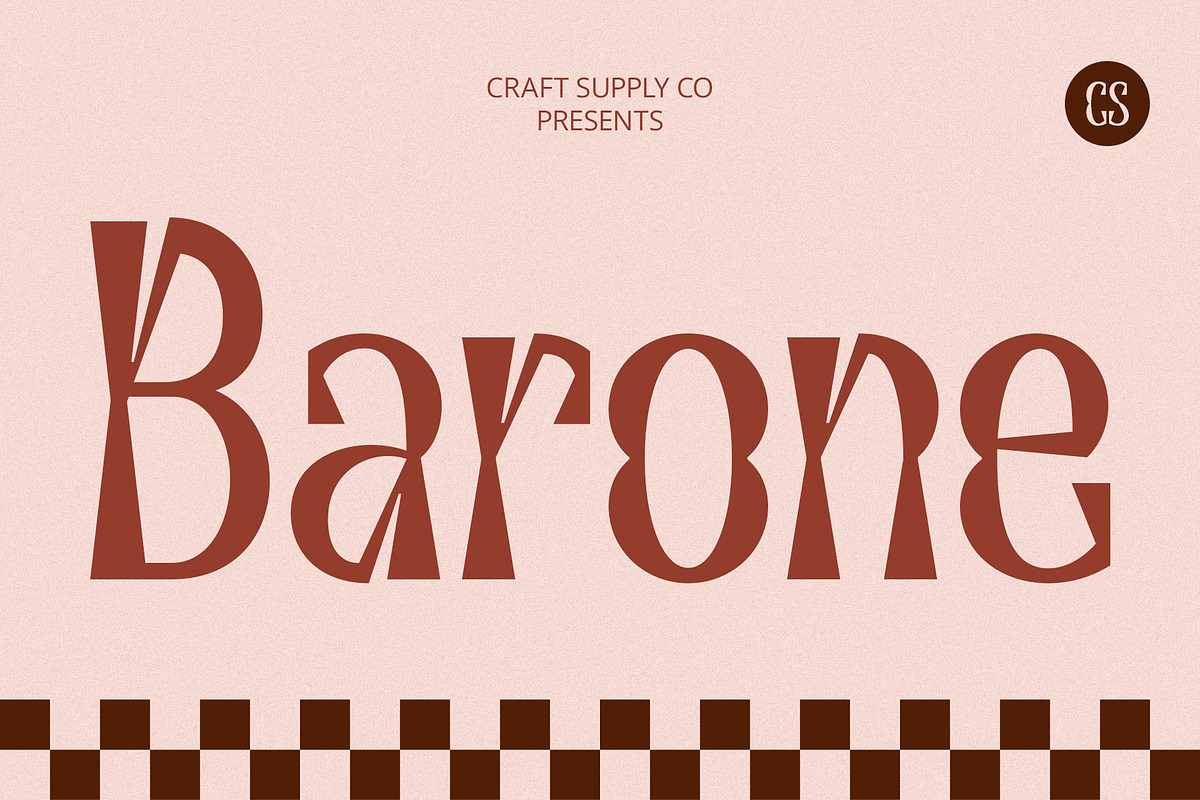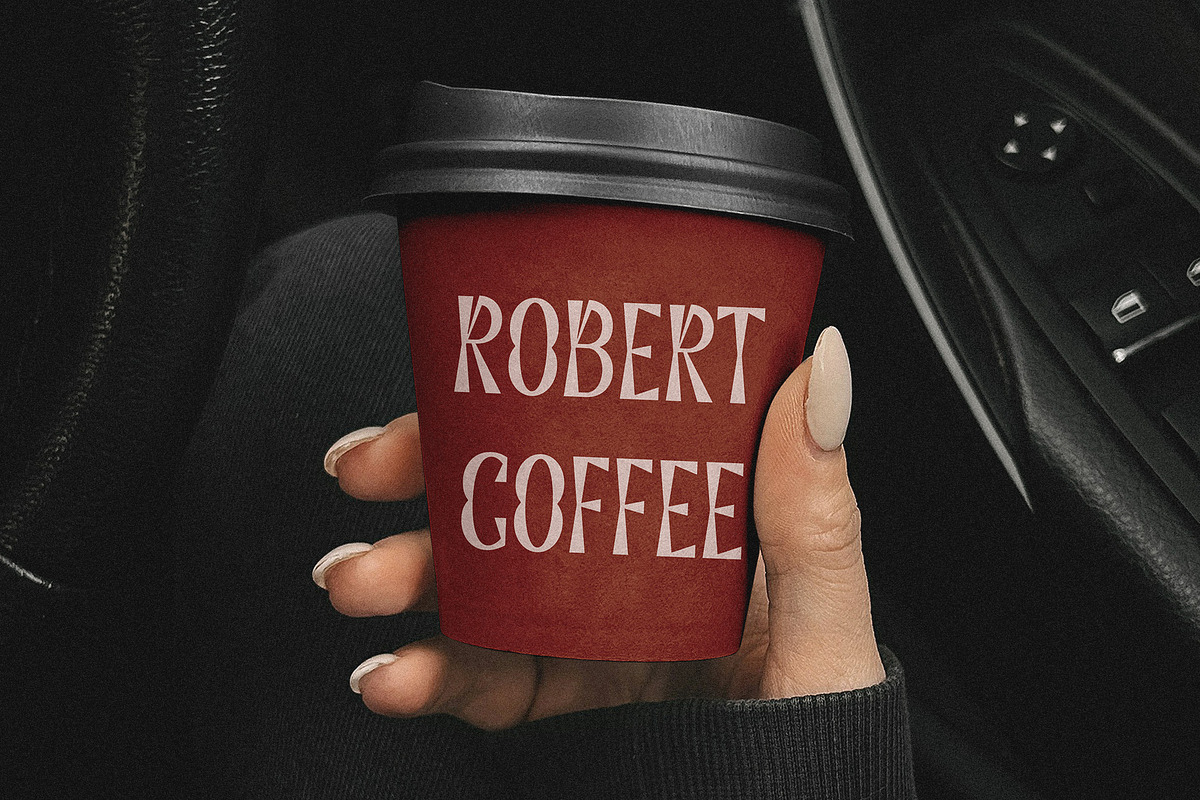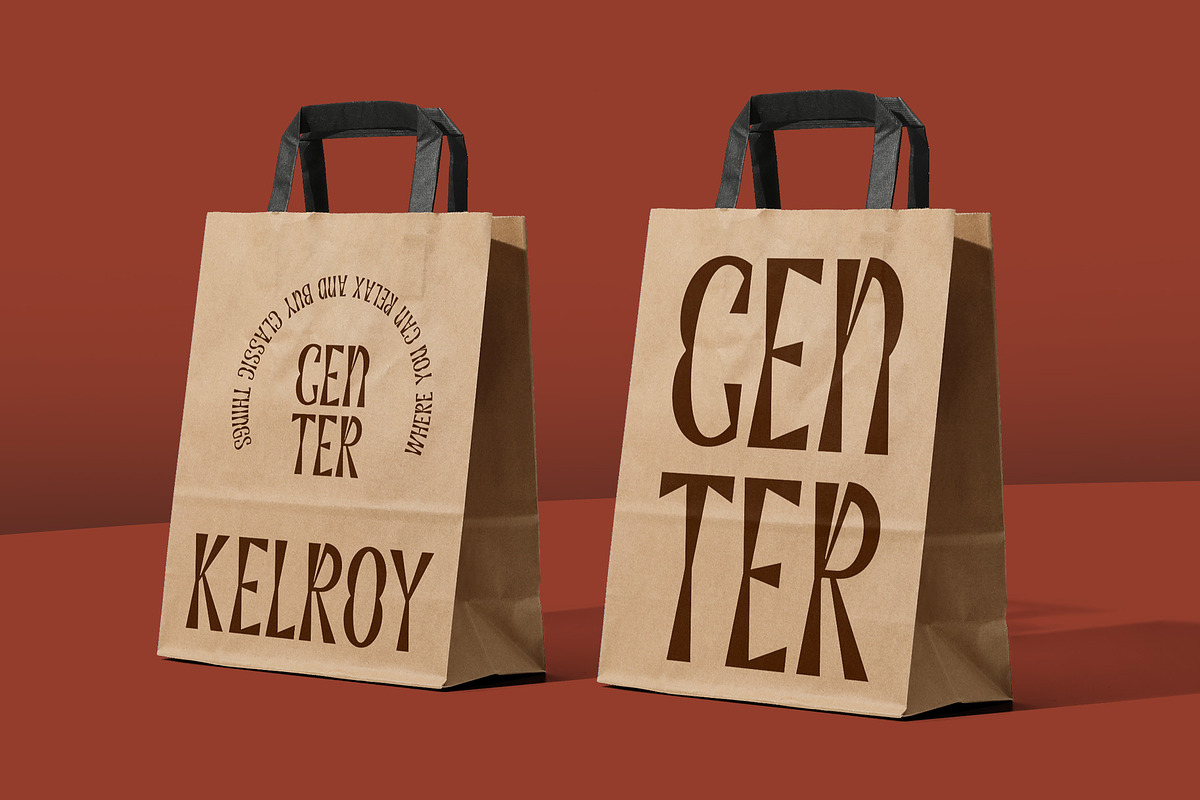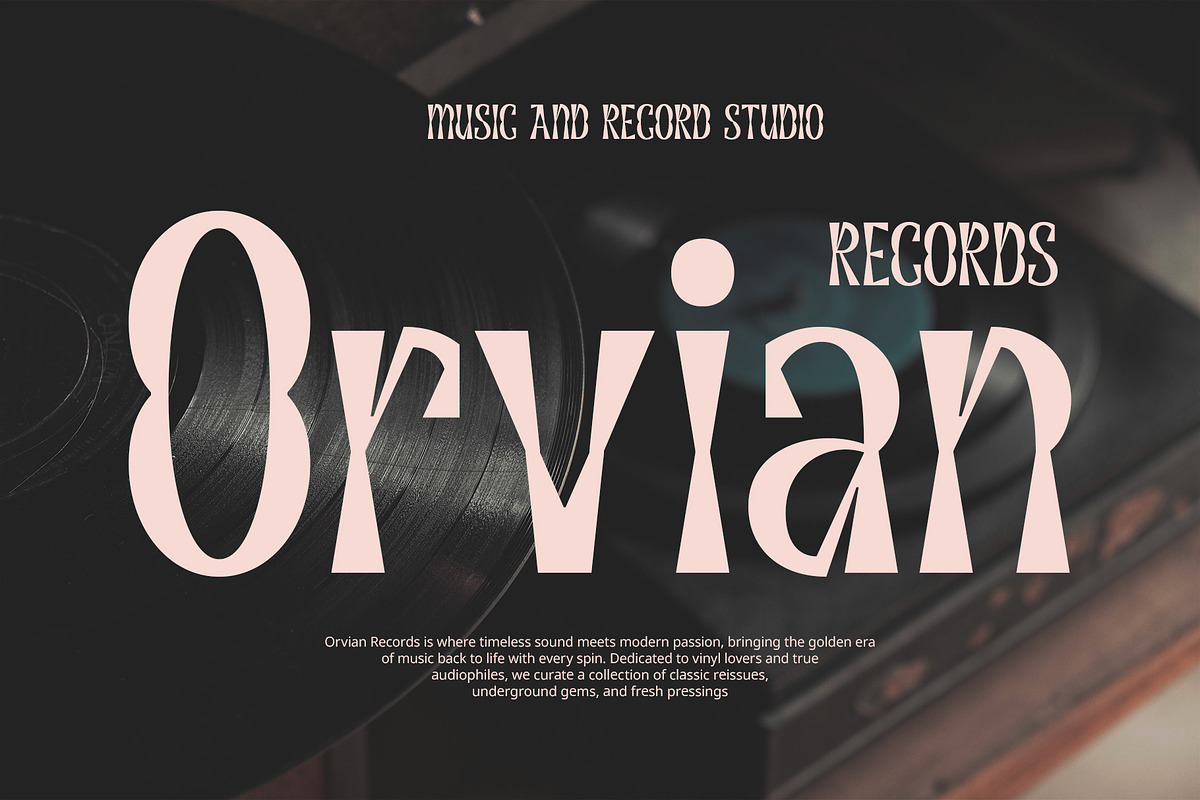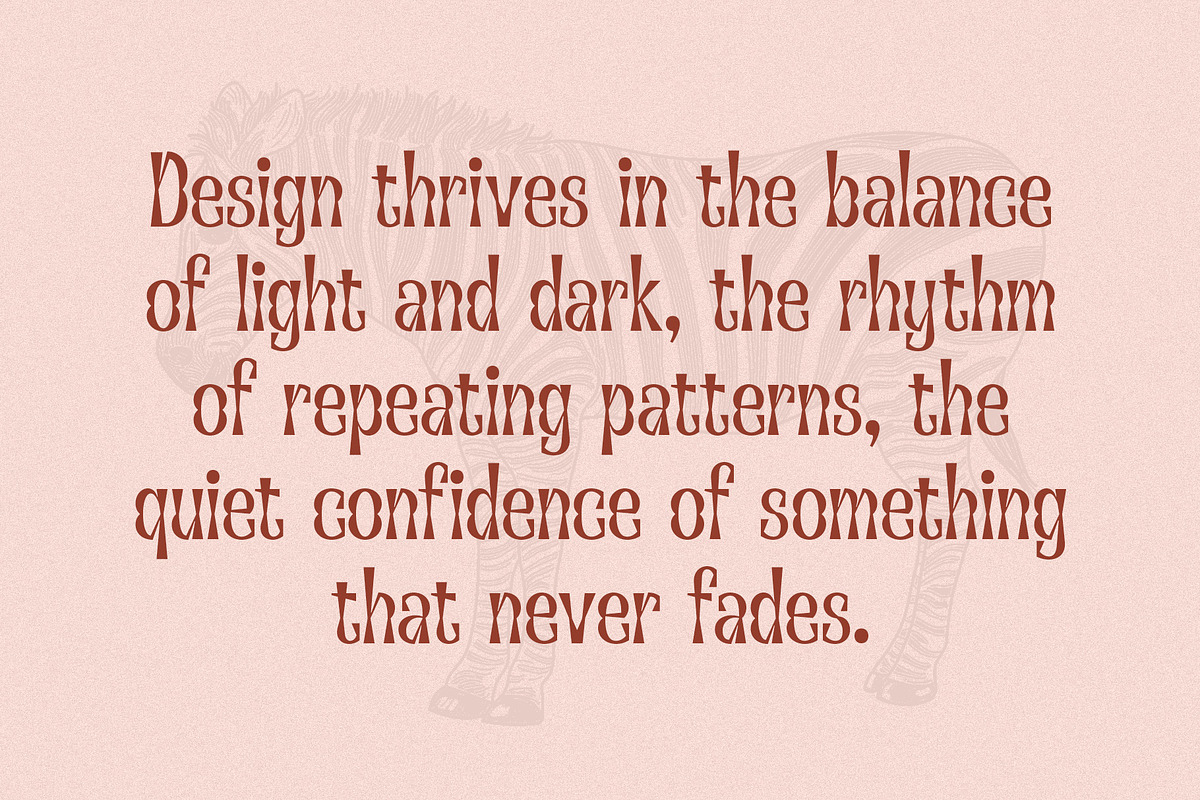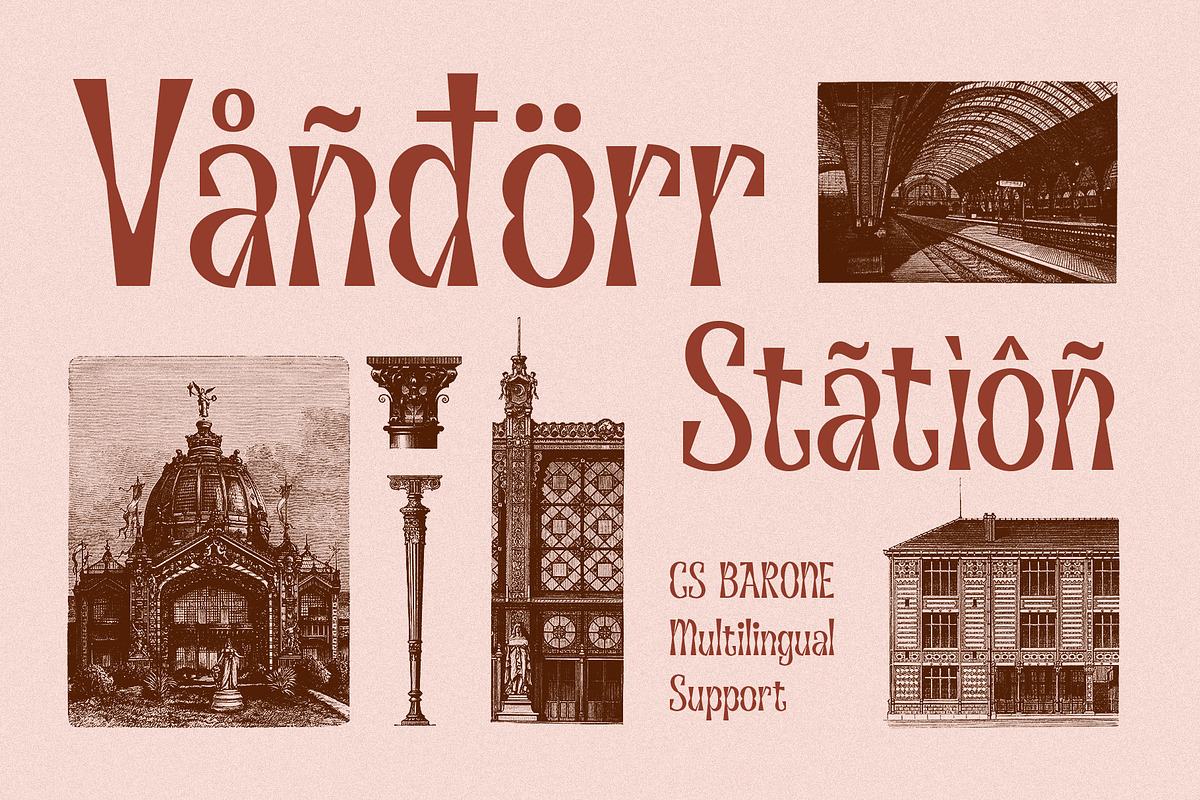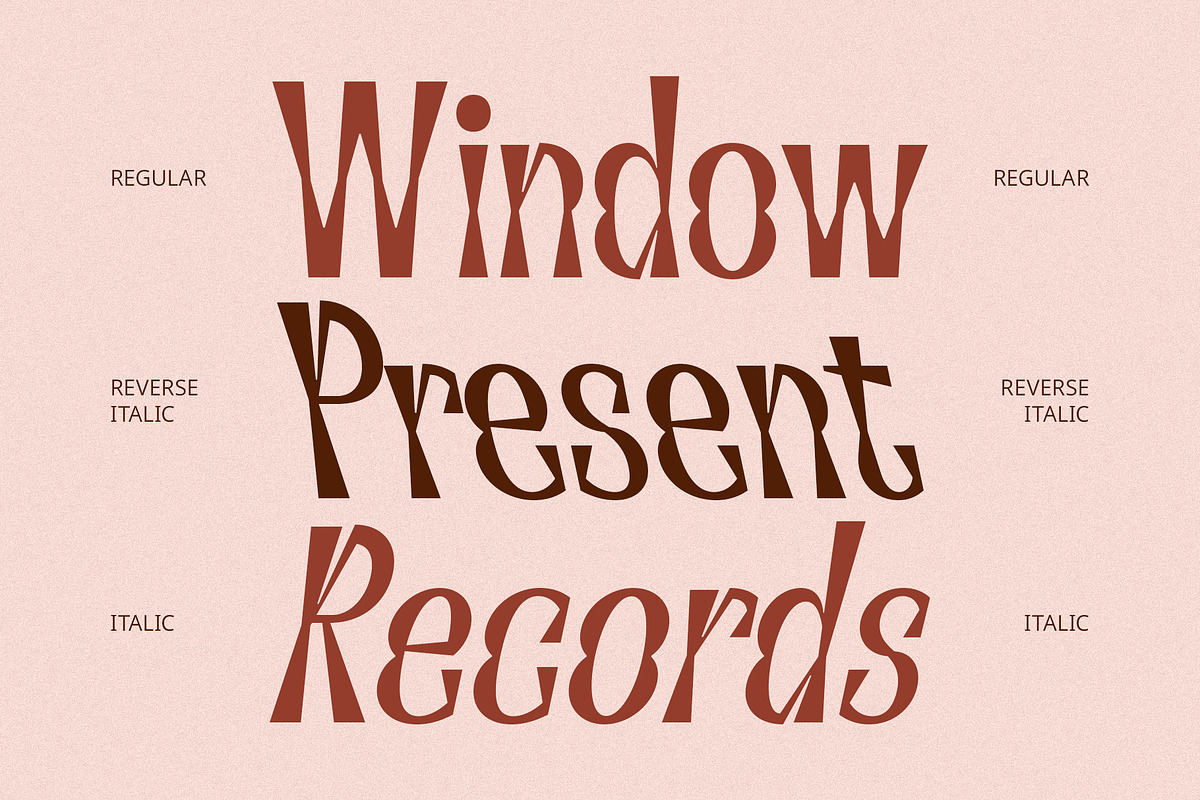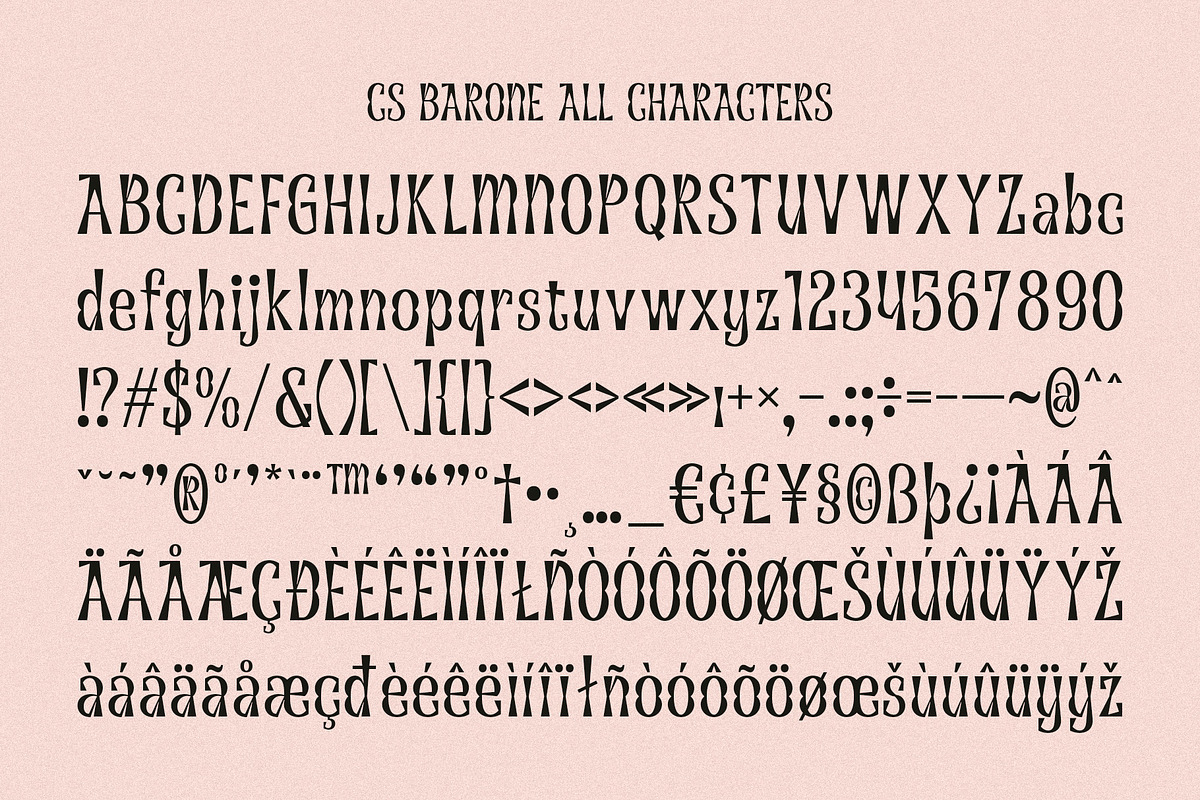
CS Barone – Decorative Font
CS Barone – A Groovy Decorative Font
Retro Charm with a Modern Twist CS Barone is a decorative display font inspired by groovy aesthetics, featuring dynamic curves, bold proportions, and expressive letterforms. Its playful and energetic personality makes it a standout choice for designs that demand a fun and captivating visual presence.
Funky and Free-Spirited Letterforms With its fluid shapes and varying thickness, CS Barone radiates a cheerful and funky vibe, adding a touch of vintage nostalgia with a contemporary edge. The bold strokes and unconventional details create a lively rhythm, making text feel as if it’s in motion.
Perfect for High-Energy Designs Designed for retro-themed projects, music posters, festival branding, and creative visual identities, CS Barone delivers an eye-catching and unforgettable aesthetic. Whether for packaging, advertisements, or digital media, this font injects a sense of fun and movement into any composition.
Stand Out with Expressive Typography CS Barone’s unique and artistic letterforms ensure that every design stands apart. Its bold yet approachable style makes it an excellent choice for playful, high-impact typography, bringing an element of joy and creativity to any project.
- CS Barone Regular
- CS Barone Italic
- CS Barone Reverse Italic